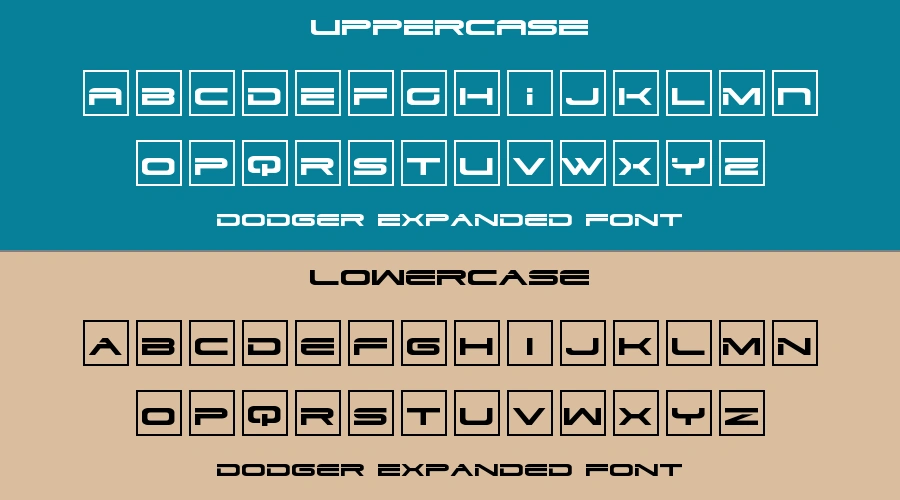
About Dodger Expanded Font
Dodger Expanded Font stands out for its distinctive combination of balanced weights and professional standards. Ideal for historical publications, it provides the precision and system compatibility that professional projects demand. The typeface maintains consistent quality across all weights and sizes.
Key features include refined systematic design and practical connecting forms, enhancing typographic expression. In heritage publications applications, Dodger Expanded Font demonstrates exceptional overlay performance. The contrast level and contemporary relevance contribute to its distinctive character and professional appeal.